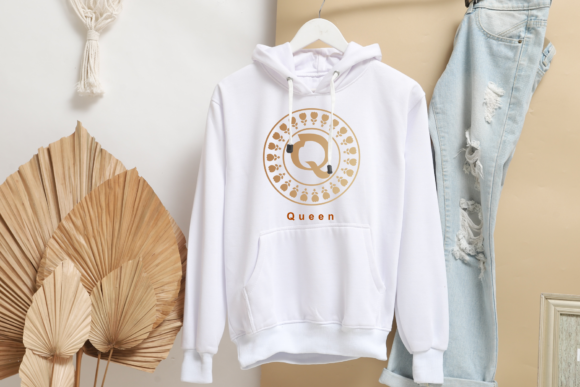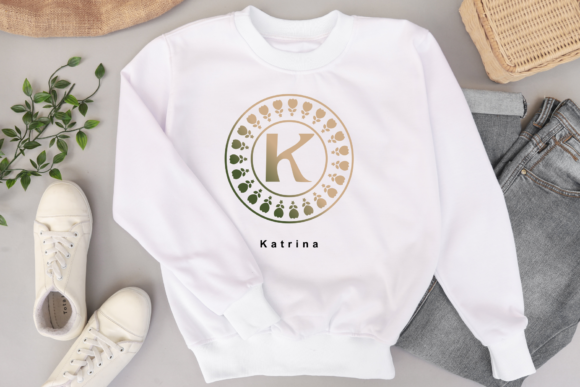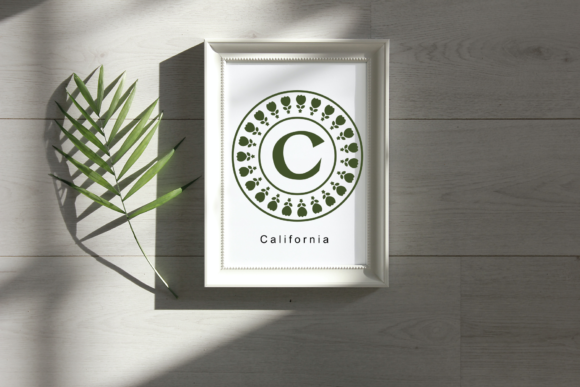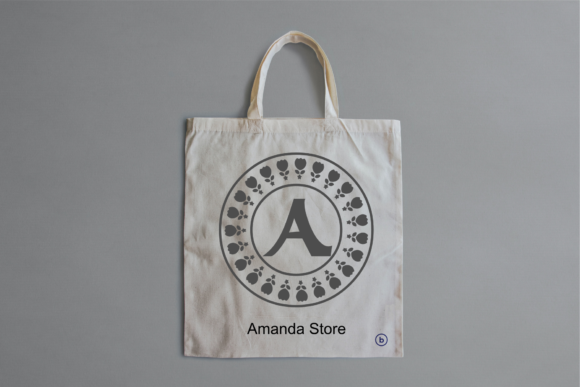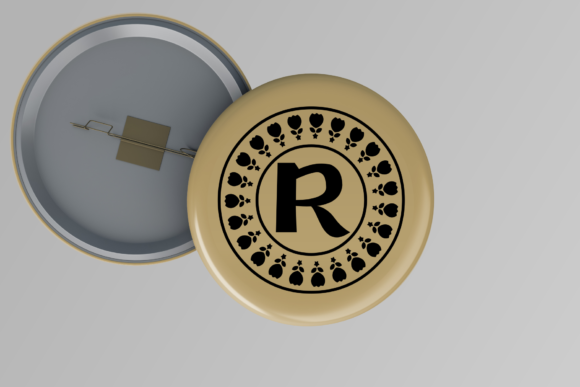
Introduction to Monogram Rosess Font
Have you ever found yourself lost in a sea of blank paper, searching for the perfect font to bring your creative project to life? That’s exactly what happened to me when I stumbled upon the enchanting Monogram Rosess Font. As I gazed at its dainty and unique design, I knew I had to share it with fellow designers and enthusiasts.
This lovely font is a game-changer for any high-quality design project, from wedding invitations to love letters. Its romantic charm is simply irresistible, making it a valuable addition to any design resource. Whether you’re working on a creative project that requires a touch of elegance or a free download that needs a special something, Monogram Rosess Font is sure to deliver.
With its transparent background and delicate details, this font is perfect for designers who crave a unique and sophisticated look. So, get ready to elevate your designs with the magic of Monogram Rosess Font!
Key Features of Monogram Rosess Font
- High-quality design resource ideal for creative projects, including invitations, logos, and other visual materials.
- Features a beautiful, elegant design with a transparent background, allowing for easy customization and versatility.
- Includes a variety of monogram styles and designs, perfect for adding a personal touch to your creative project.
- High-resolution font files ensure crisp and clear text, even when scaled up or used in large formats.
- Perfect for designers and artists looking for a unique and high-quality design resource to elevate their creative project.
Honest Review: Monogram Rosess Font
I recently came across the Monogram Rosess Font while searching for a design resource for a creative project. As a designer, I appreciate high-quality fonts that can elevate a design and add a touch of elegance.
The Monogram Rosess Font is a beautiful, intricate design that features a classic monogram style. It’s perfect for adding a personal touch to invitations, stationery, and other formal designs.
- ✨ Elegant and sophisticated design
- ✨ Works well on both light and dark backgrounds
- ⚠️ Limited character set (only uppercase letters and some symbols)
- ⚠️ Not suitable for large blocks of text due to its intricate design
Overall, I’m impressed with the Monogram Rosess Font. It’s a great design resource for anyone looking to add a touch of sophistication to their creative project. While it has some limitations, it’s definitely worth considering for the right design.
Tips for Getting the Most Out of Monogram Rosess Font
Use the Monogram Rosess Font with a transparent background to give your designs a clean and modern look. Experiment with different font sizes and styles to create visually appealing text elements.
Monogram Rosess Font is suitable for various creative projects, including logo designs, branding materials, social media graphics, presentations, and documents. Its high-quality design makes it a great resource for designers and non-designers alike.